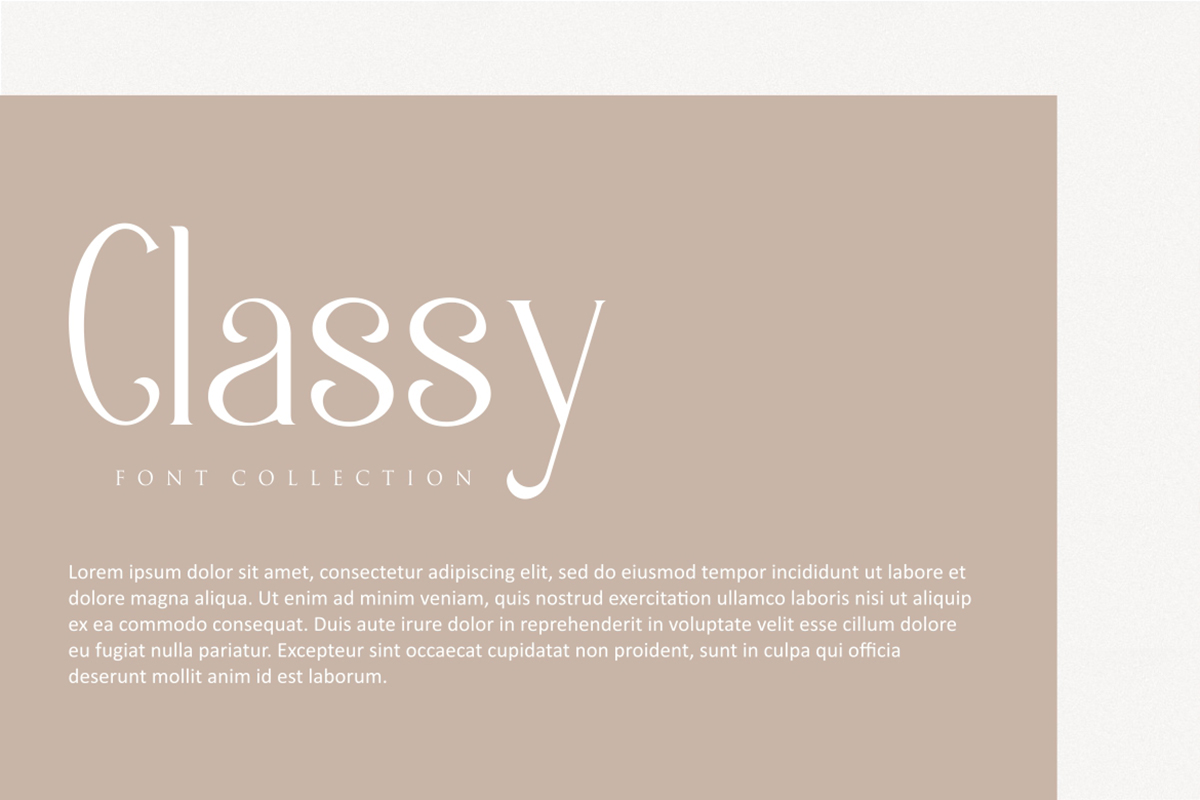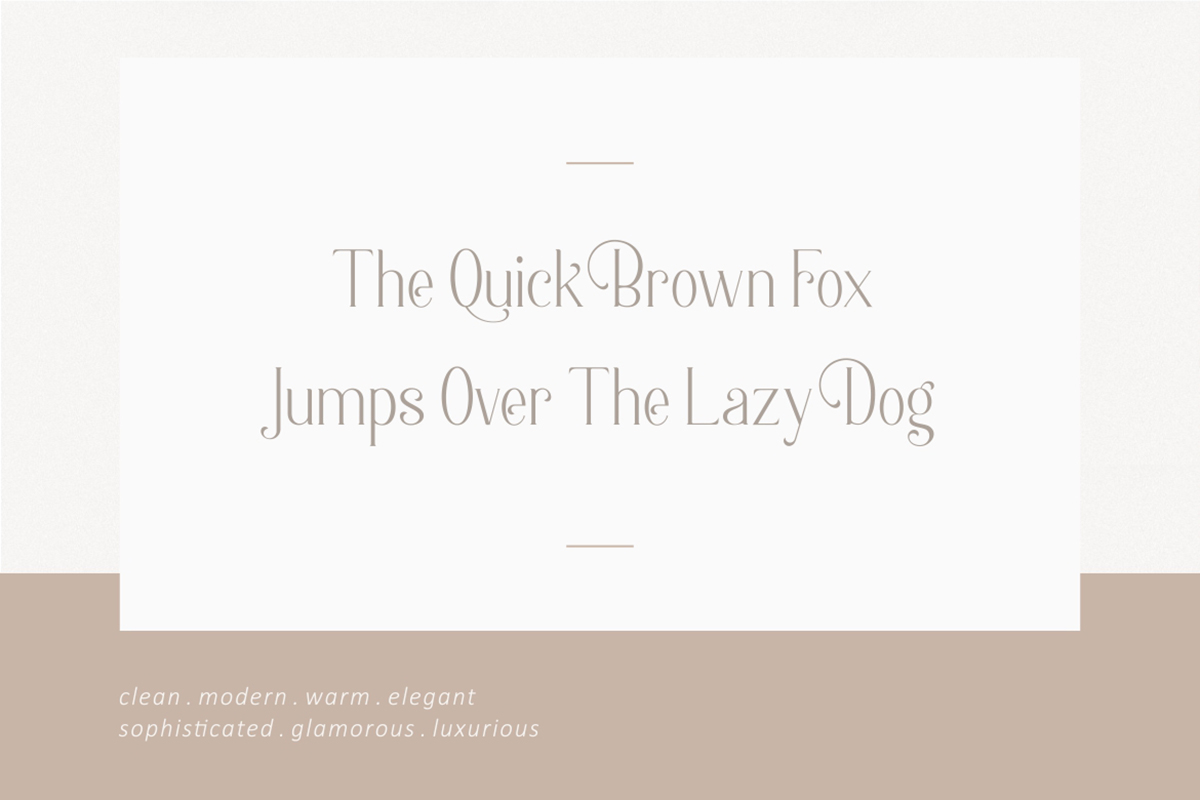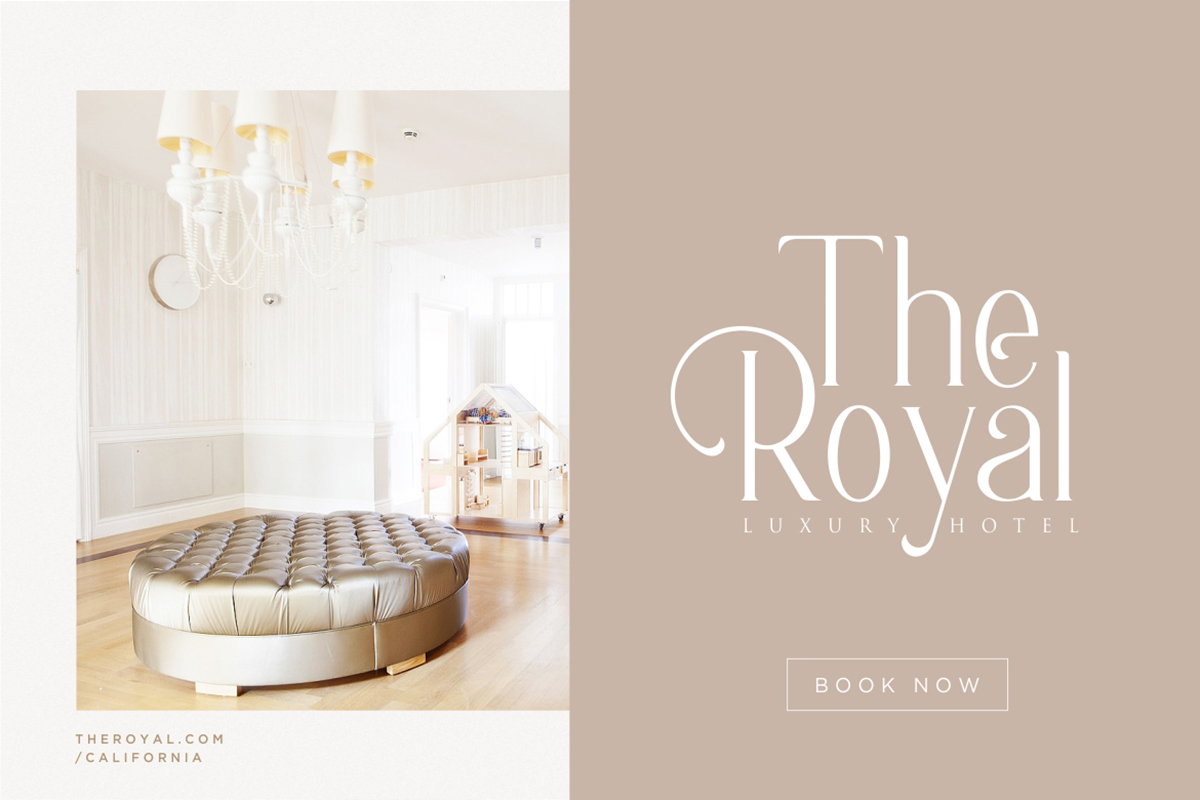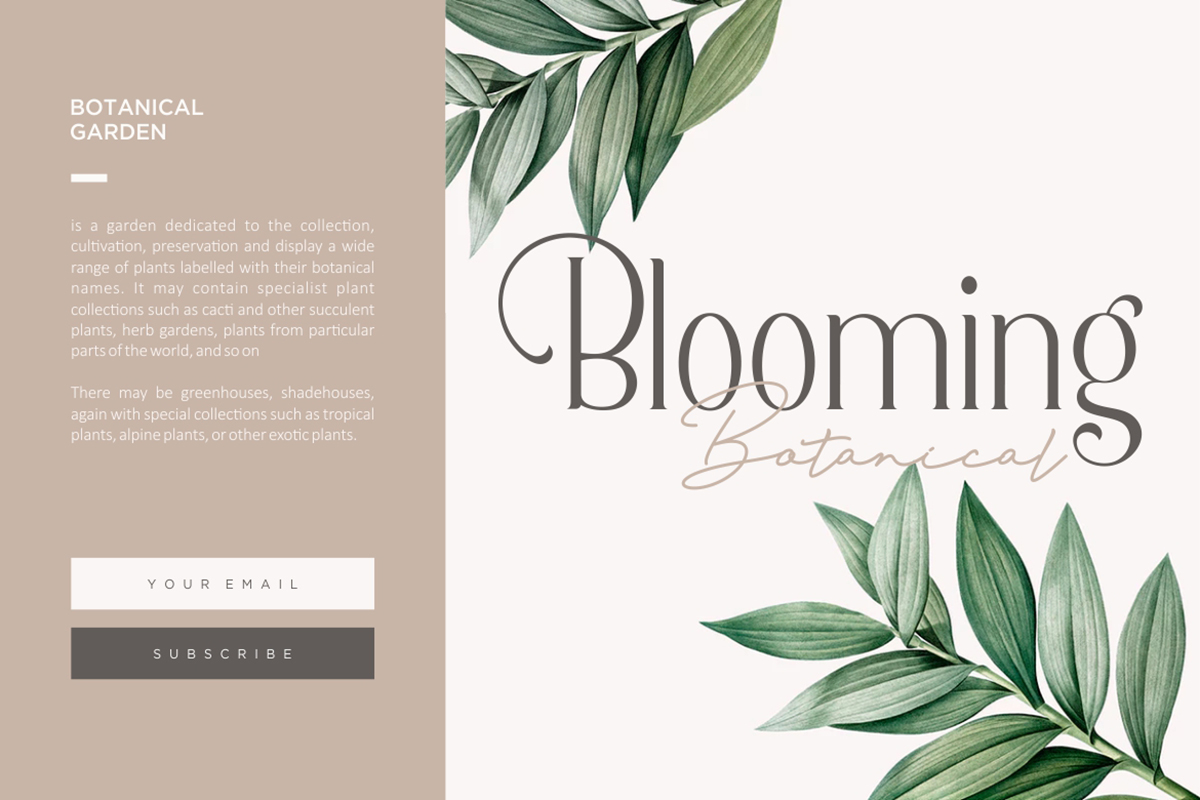
Berlin Free Font
Berlin Free Font is an elegant serif font designed with full and high accuracy to create a classy font style. It perfectly represents luxurious yet elegant in a modern and minimalist way. This free typeface was designed by talented Hansย Co. If you like it donโ€™t forget to check out the full version.